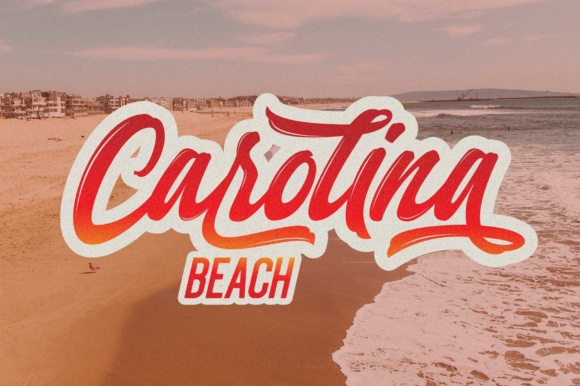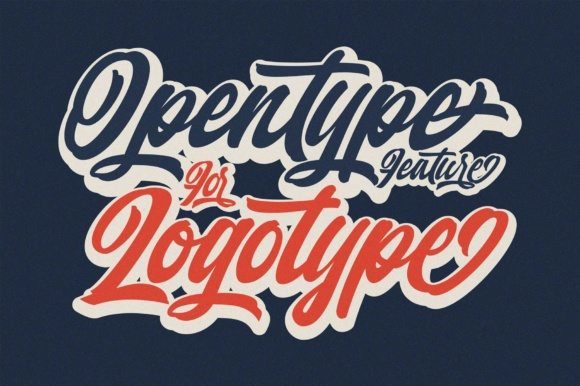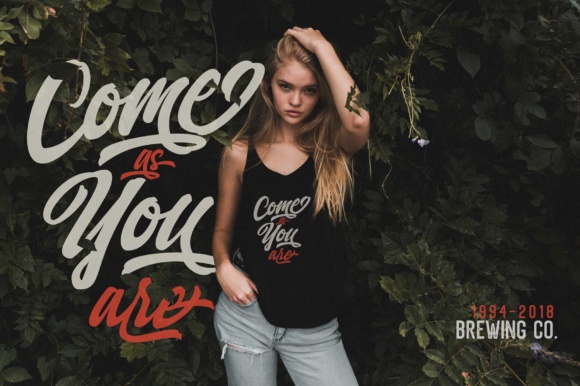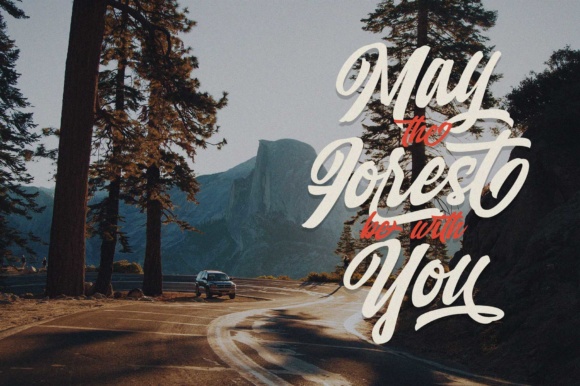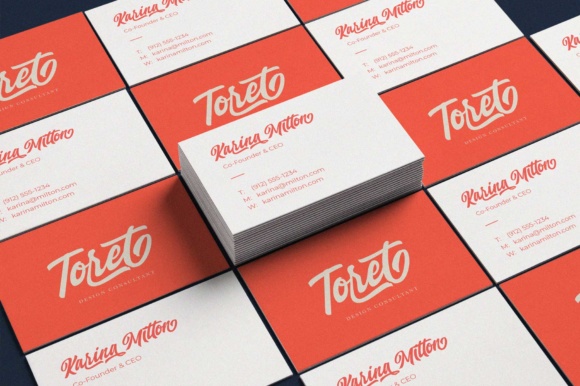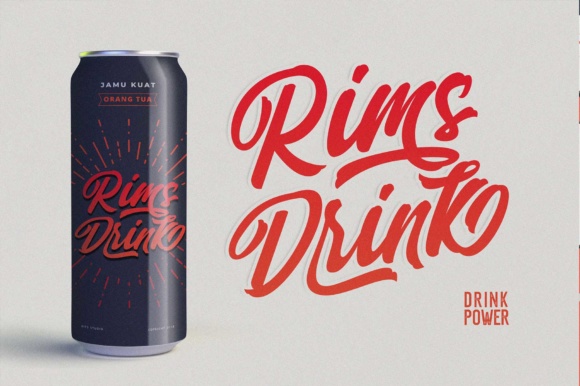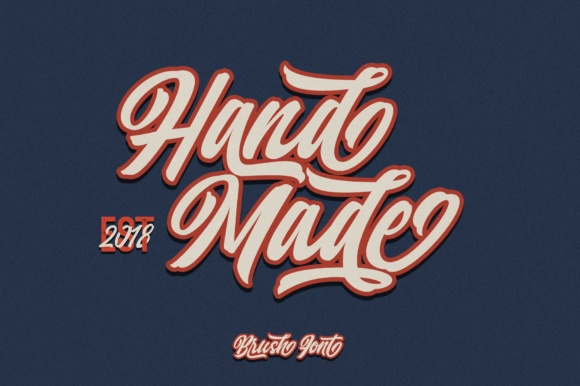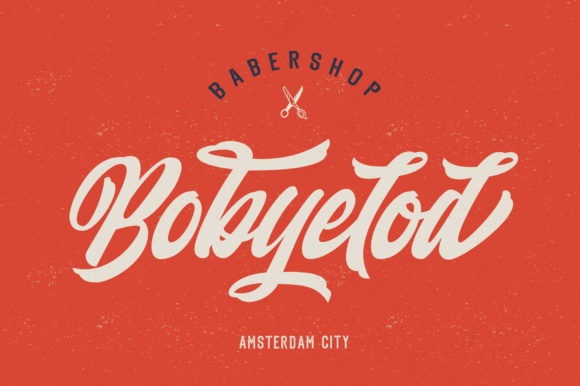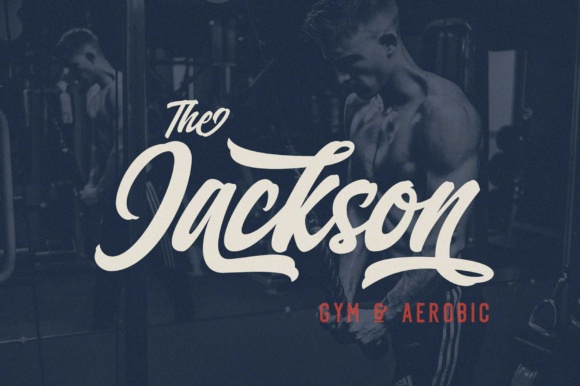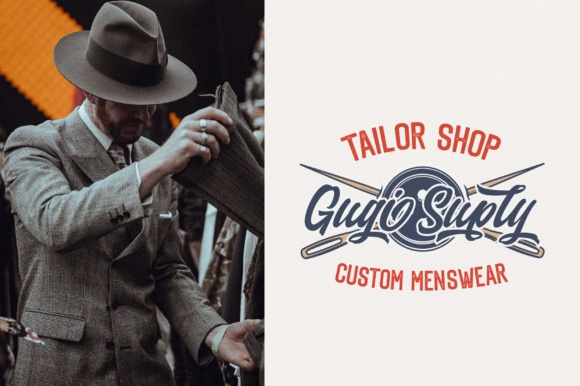
Qintan Script Font
About Qintan Script Font
The Qintan Script is a bold, fun font which was inspired by urban street wear and vintage signs. It’s ideal for branding, logos, handwriting quotes, product packaging, headers, and much more!